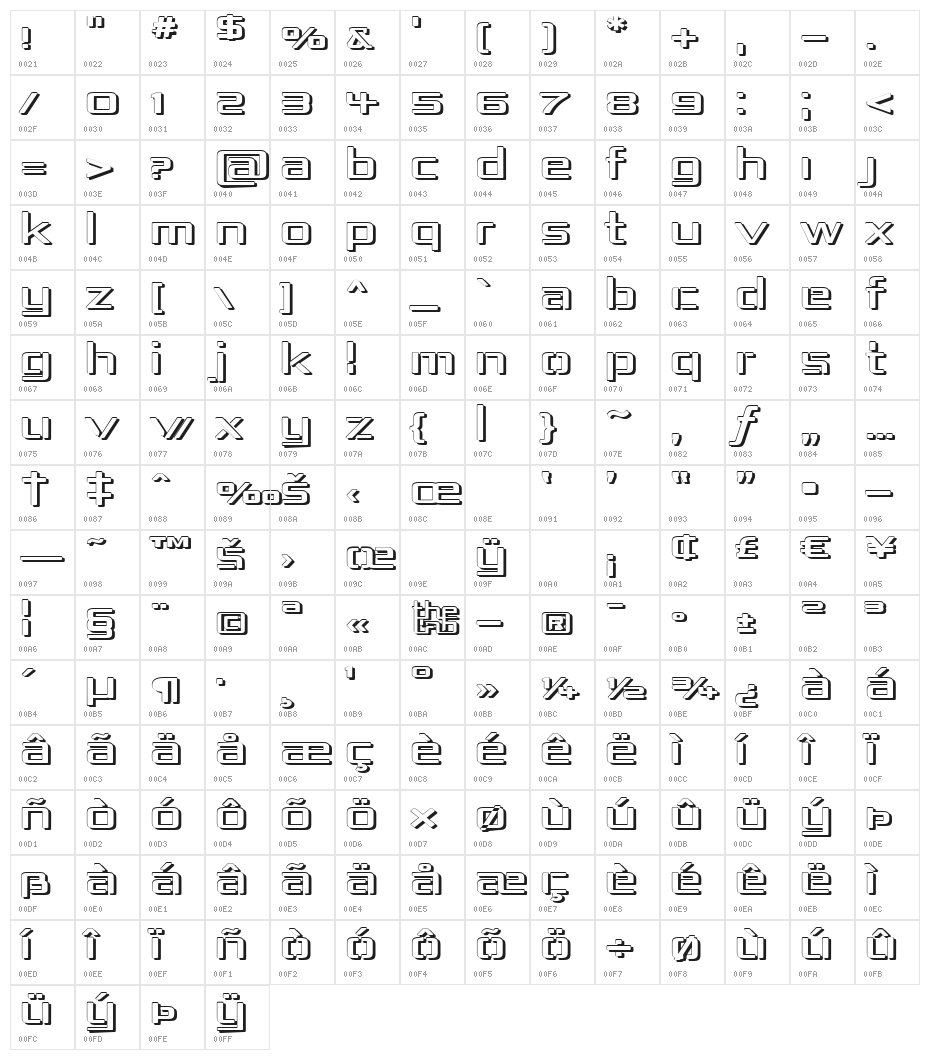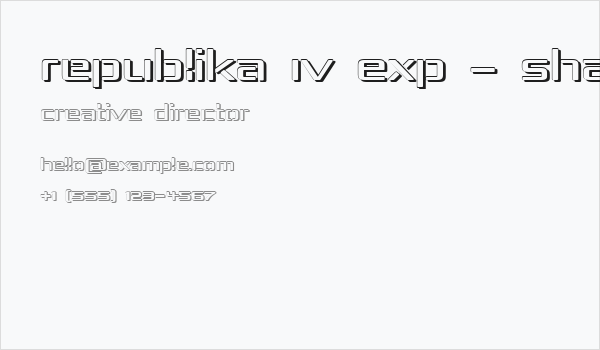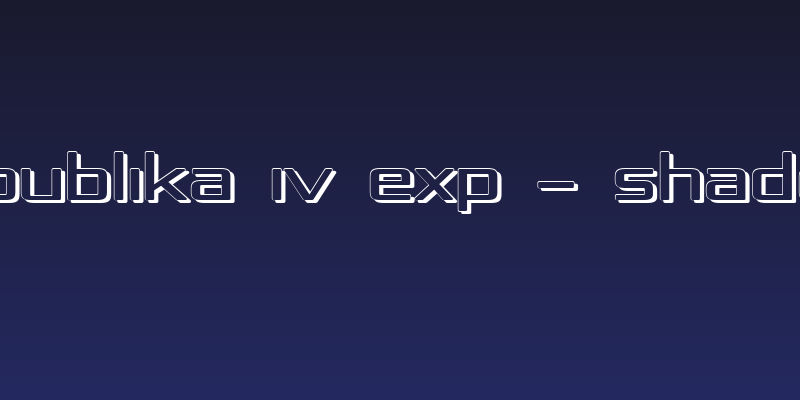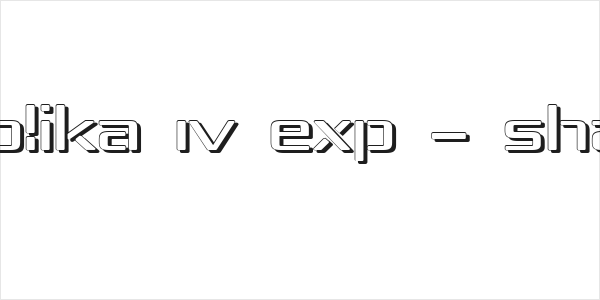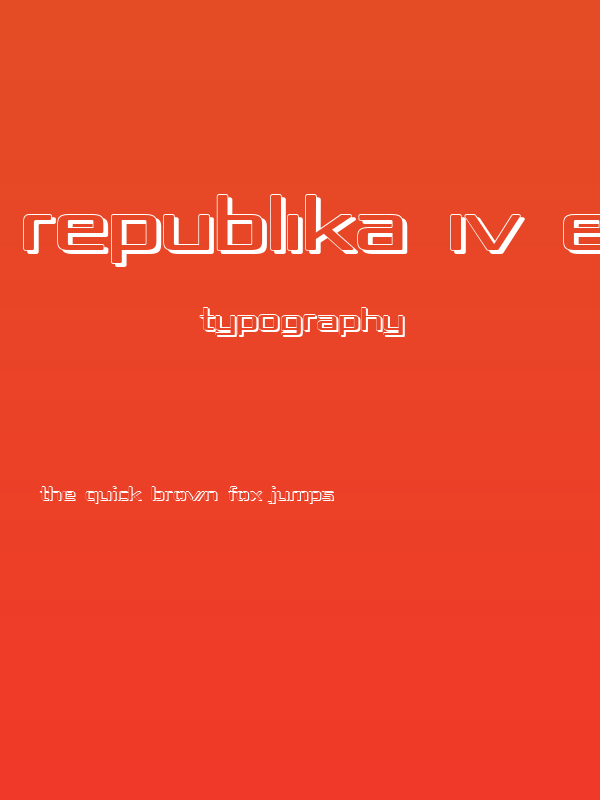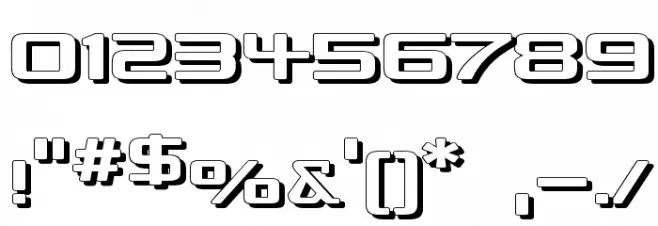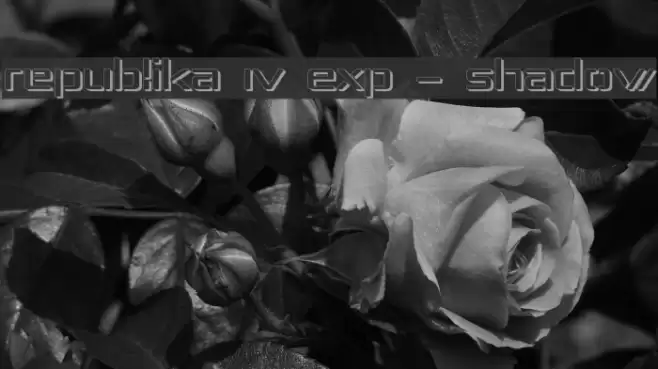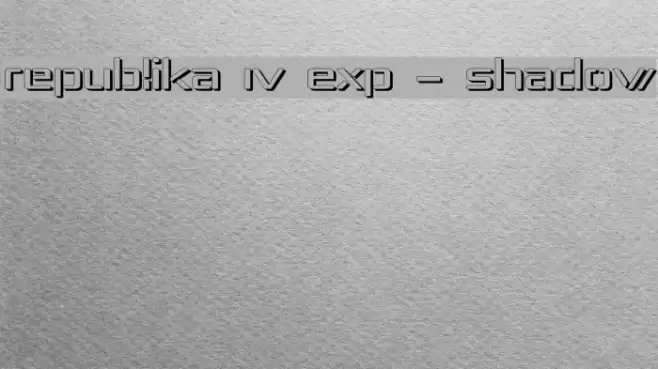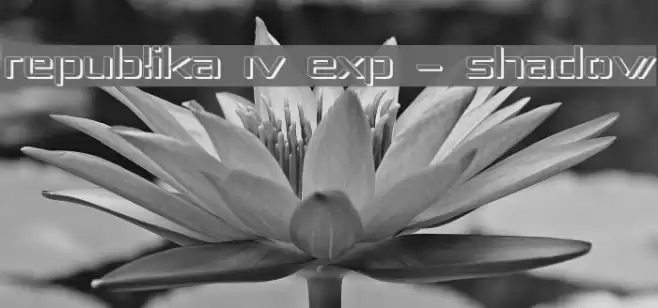
Republika IV Exp - Shadow Font
Republika IV Exp - Shadow Description
This font features a bold, futuristic design with a distinct shadow effect that gives it a three-dimensional appearance. The characters are structured with clean, straight lines and sharp angles, creating a modern and dynamic look. The shadowing adds depth and a sense of movement, making it stand out in any design. The uppercase and lowercase letters maintain a consistent style, with numerals and special characters following the same aesthetic. This font's unique style is ideal for projects that require a strong visual impact.
| Proposed Projects | Ideal for sci-fi themed designs, video game titles, posters, and branding that requires a modern and impactful look. |